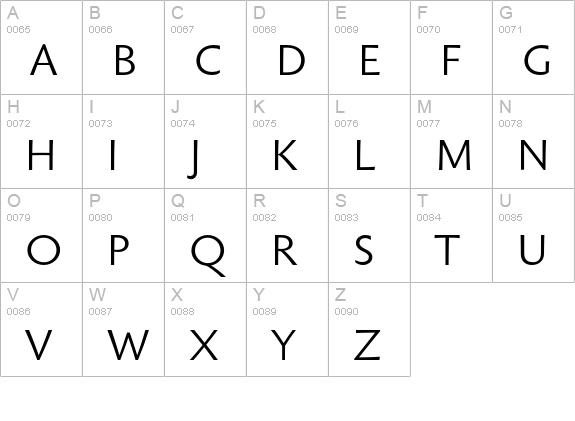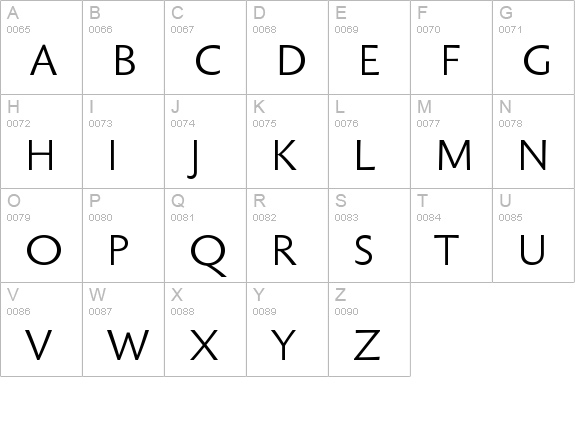
Sebastian Light Pro Font Details
Sebastian Light Pro is a refined, elegant variant in the Sebastian typeface family \xE2\x80\x94 well suited to elegant body text, refined sub-headings, and luxury branding.
Introducing Sebastian Light Pro, a stunning and elegant font that will elevate your design projects to a whole new level. With its sleek and modern appearance, this typeface is perfect for a wide range of applications, from branding and packaging to editorial design and advertising. Sebastian Light Pro exudes a sense of sophistication and refinement, making it the ideal choice for high-end projects that demand a touch of class. Its clean lines and balanced proportions create a harmonious visual aesthetic that is both pleasing to the eye and easy to read. One of the best features of Sebastian Light Pro is that it is available for free! Yes, you read that correctly. This incredible font can be downloaded for free at FontsMarket.com, allowing you to add a touch of elegance to your designs without breaking the bank. Whether you're a professional designer or a creative enthusiast, Sebastian Light Pro is a must-have in your font collection. Its versatility and timeless appeal make it suitable for a wide range of design styles, from minimalist and modern to vintage and retro. So why wait? Experience the power and beauty of Sebastian Light Pro today by downloading it for free at FontsMarket.com. Don't miss out on this amazing opportunity to enhance your designs with a font that combines style, elegance, and affordability. Get your creative juices flowing and let Sebastian Light Pro be your ultimate design companion.